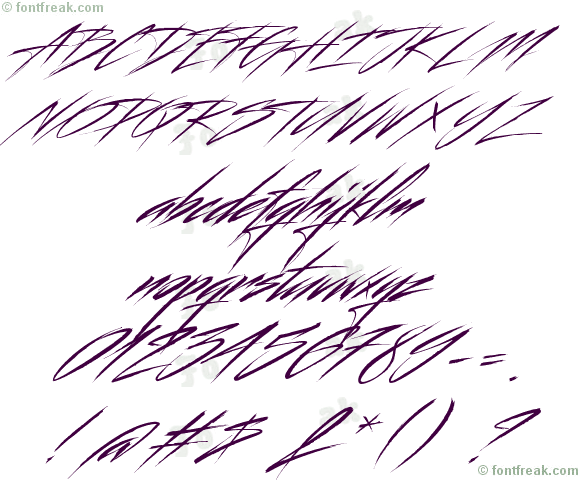
Beastform
About Beastform
Beastform by Youssef Habchi is a striking display font that captivates with its unique handwritten style. This font stands out due to its fluid strokes and bold character, offering a dynamic visual appeal that is both artistic and expressive. With a mix of sharp and flowing curves, Beastform exhibits varying stroke weights that create an engaging contrast, enhancing its legibility while maintaining a sense of creativity. The spacing is thoughtfully crafted to ensure clarity, making it suitable for various design applications.
This font is ideal for a range of use cases that demand attention and flair. Graphic designers can utilize Beastform for impactful movie posters, where its dramatic style can convey the essence of the film. Additionally, it works wonderfully for wedding invitations, adding a personal touch to the special day. Restaurant menus can benefit from Beastform's distinctive appearance, drawing in patrons with its stylish presentation. Content creators looking to elevate their branding will find this font perfect for logos and promotional materials, as it encapsulates a modern yet artistic vibe.
Targeting graphic designers, small business owners, and content creators, Beastform is a versatile choice that appeals to those aiming to create standout visuals. The font's artistic flair is complemented by its usability, making it a valuable addition to any designer's toolkit.